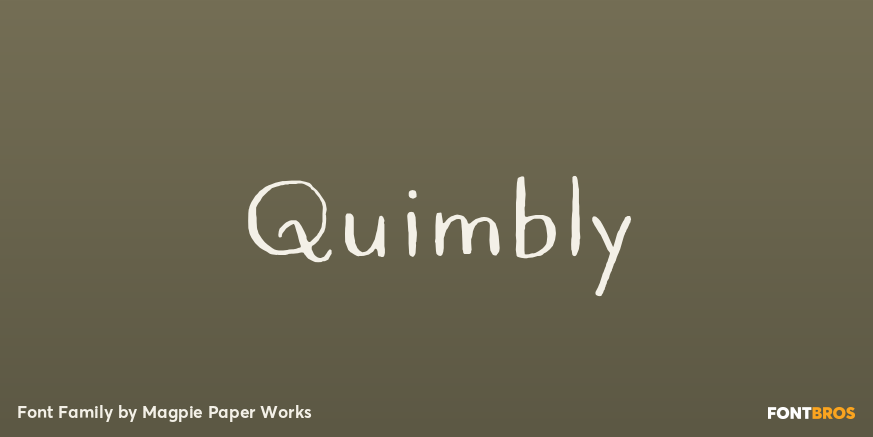
Quimbly
Quimbly was designed to shine! This hand-drawn font family comes in three weights (light, regular and bold) and was carefully created with coordination in mind. Warm, balanced letters pair very well with just about every modern calligraphy typeface. And…